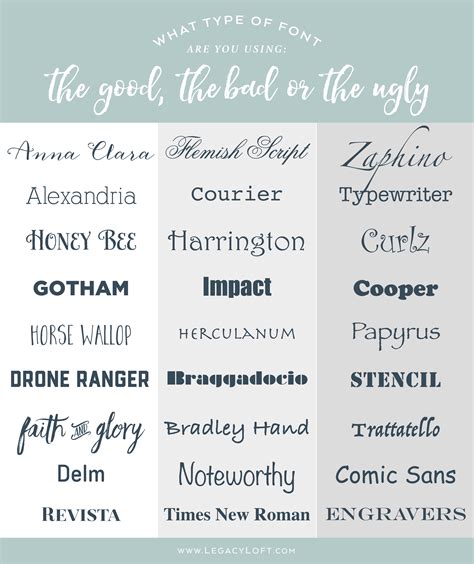
Ihuruf New Roman: The Ultimate Font Guide
Hey guys! Ever wondered about that sleek, classic font you see everywhere? Chances are, you’re thinking of something close to Ihuruf New Roman! This font, or fonts like it, have a certain timeless appeal that makes them super popular in everything from official documents to stylish designs. Let’s dive deep into what makes Ihuruf New Roman so special, where you might have seen it, and how you can use it to level up your own projects. We’ll also clear up some confusion, since “Ihuruf New Roman” isn’t exactly a font you can download. Buckle up, font fanatics!
What Exactly Is Ihuruf New Roman?
Okay, let’s get this straight. Ihuruf New Roman isn’t actually a font you’ll find in your font library. It sounds a lot like the super famous Times New Roman, and that’s likely what people are referring to. Times New Roman is a serif typeface – meaning it has those little feet or strokes at the end of the letters – and it’s one of the most widely used fonts in the world. You’ve definitely seen it in books, newspapers, and countless websites. So, when someone says “Ihuruf New Roman,” they probably mean Times New Roman or a very similar font. Times New Roman was commissioned by The Times newspaper in 1931 and designed by Stanley Morison and Victor Lardent. Its creation was a response to criticisms of the newspaper’s previous font, which was considered outdated and difficult to read. The goal was to create a typeface that was both legible and space-efficient, allowing for more text to fit on a page. This led to the development of Times New Roman, which quickly gained popularity and became a standard in the printing industry. Its clear and concise design made it ideal for long-form reading, and its versatility allowed it to be used in a wide range of publications. The font’s success can be attributed to its ability to balance functionality with aesthetic appeal, making it a timeless choice for both print and digital media. Over the years, Times New Roman has been adapted and modified for various platforms, ensuring its continued relevance in the ever-evolving world of typography. Whether you’re reading a novel, browsing a website, or working on a document, chances are you’ve encountered Times New Roman and appreciated its understated elegance and readability. Its legacy as a foundational typeface is undeniable, and its influence can be seen in countless other fonts that have been developed since its creation. So, while Ihuruf New Roman may not be a specific font you can download, understanding its connection to Times New Roman provides valuable insight into the world of typography and the importance of choosing the right font for your needs.
There are tons of reasons why this font, or its close cousin, is such a big deal. First off, it’s super readable. The clear, defined shapes of the letters make it easy on the eyes, especially for long blocks of text. This is why you see it in so many books and articles. Secondly, it’s versatile. Times New Roman works well in both print and digital formats. It’s not too fancy or distracting, making it a solid choice for professional documents, academic papers, and even websites. Plus, it comes pre-installed on most computers, so it’s readily available for just about everyone. But readability isn’t the only factor contributing to Times New Roman’s enduring popularity; its historical significance and association with authority also play a role. As the font of choice for The Times newspaper, it carries a certain weight of credibility and trustworthiness. This makes it a popular choice for legal documents, government publications, and other materials where a sense of formality and professionalism is desired. Furthermore, Times New Roman’s widespread adoption in the early days of desktop publishing helped solidify its status as a standard typeface. Its compatibility with various software programs and printers made it a convenient option for designers and publishers alike. Over time, its familiarity became an asset, as readers grew accustomed to its appearance and found it easy to process. While some designers may view Times New Roman as somewhat generic or uninspired, its ubiquity is precisely what makes it so effective in many contexts. It doesn’t draw attention to itself, allowing the content to take center stage. In a world where visual clutter is rampant, this understated quality can be a refreshing change. So, whether you love it or hate it, there’s no denying the impact of Times New Roman on the world of typography. Its readability, versatility, historical significance, and widespread availability have all contributed to its enduring popularity. And while Ihuruf New Roman may not be a font you can download, understanding its connection to Times New Roman provides valuable insight into the reasons behind this font’s continued relevance.
Where Have You Seen Ihuruf New Roman (Probably Times New Roman)?
Seriously, this font is everywhere! Think about it. You’ve probably seen it in:
• Books: Especially novels and non-fiction books.
• Newspapers and Magazines: It was originally designed for The Times newspaper, after all.
• Legal Documents: Many legal forms and court documents use Times New Roman for its professional look.
• Academic Papers: Students often use it for essays and research papers.
• Websites: While not as common as sans-serif fonts for body text on websites, you’ll still find it in some corners of the internet.
It’s the go-to font for anything that needs to look clear, professional, and easy to read. The prevalence of Times New Roman extends beyond these common examples, permeating various aspects of our daily lives. For instance, many government agencies and institutions use Times New Roman in their official communications, from letters and memos to reports and publications. Its association with authority and credibility makes it a natural choice for these organizations. In the business world, Times New Roman is often used in corporate reports, presentations, and other internal documents. While some companies may opt for more modern or stylized fonts in their marketing materials, Times New Roman remains a reliable option for formal communications. Even in the realm of education, Times New Roman plays a significant role. Many universities and colleges require students to use Times New Roman in their essays and research papers, reinforcing its status as a standard academic typeface. Furthermore, Times New Roman is often used in standardized tests and assessments, ensuring consistency and readability across a wide range of documents. Its simplicity and clarity make it an ideal choice for these high-stakes situations. So, whether you’re aware of it or not, Times New Roman is likely present in many of the documents and materials you encounter on a daily basis. Its ubiquity is a testament to its enduring appeal and its ability to meet the needs of a diverse range of users. And while Ihuruf New Roman may not be a font you can download, understanding its connection to Times New Roman provides valuable insight into the pervasiveness of this iconic typeface.
How to Use Ihuruf New Roman (or Something Like It) in Your Own Projects
So, you’re digging the Ihuruf New Roman vibe and want to use it in your own work? Awesome! Here’s how to make the most of it:
• For Long Documents: If you’re writing a report, a book, or a long article, Times New Roman (or a similar serif font) is a great choice for the body text. It’s easy on the eyes and won’t tire out your readers.
• For a Professional Look: Need to create a resume, a cover letter, or a business proposal? Times New Roman can give your document a polished and professional feel. Just be sure to pair it with a modern font for headings to avoid looking too outdated.
• For Print Materials: Times New Roman is a solid choice for printed materials like brochures, flyers, and posters. Its clear letterforms will ensure that your message is easy to read, even at smaller sizes.
• Pairing with Other Fonts: Times New Roman pairs well with many sans-serif fonts, like Arial, Helvetica, or Open Sans. Use Times New Roman for the body text and a sans-serif font for the headings to create a visually appealing and balanced design.
Experiment with different font sizes, line heights, and letter spacing to find the perfect combination for your project. Remember, the goal is to create a design that is both visually appealing and easy to read. When using Times New Roman in your own projects, it’s essential to consider the overall context and the message you’re trying to convey. While Times New Roman is a versatile font, it’s not always the best choice for every situation. For instance, if you’re creating a website with a modern and cutting-edge design, Times New Roman might feel out of place. In such cases, a more contemporary sans-serif font might be a better option. Similarly, if you’re designing a logo or branding materials, you’ll want to choose a font that reflects your brand’s personality and values. Times New Roman can be a good choice for brands that want to project a sense of tradition, authority, and reliability. However, if your brand is more playful or innovative, you’ll want to explore other options. Ultimately, the key to using Times New Roman effectively is to understand its strengths and limitations and to choose it wisely based on the specific needs of your project. And while Ihuruf New Roman may not be a font you can download, understanding its connection to Times New Roman provides valuable insight into the principles of typography and the importance of choosing the right font for your design.
Clearing Up the Confusion: Ihuruf New Roman vs. Times New Roman
Okay, let’s address the elephant in the room. Ihuruf New Roman isn’t a font you’re going to find in your font menu. It’s almost certainly a misremembering or a reference to the ever-popular Times New Roman. They sound alike, and Times New Roman is so ubiquitous that it’s easy to see how the names might get mixed up. So, if you’re looking for Ihuruf New Roman , just search for Times New Roman , and you’ll be good to go! The confusion between Ihuruf New Roman and Times New Roman highlights the importance of accurate font identification and nomenclature. In the world of typography, subtle differences in font names and styles can have a significant impact on the overall design and readability of a document. Therefore, it’s crucial to be precise when specifying fonts and to avoid using ambiguous or inaccurate terms. Furthermore, the confusion underscores the dominance of Times New Roman in the world of typography. Its widespread use and recognition have made it a household name, often overshadowing other similar serif fonts. While Times New Roman is undoubtedly a valuable and versatile typeface, it’s essential to be aware of the many other font options available and to choose the one that best suits your specific needs and preferences. Exploring different font styles and experimenting with various combinations can help you create unique and visually appealing designs that stand out from the crowd. And while Ihuruf New Roman may not be a font you can download, understanding its connection to Times New Roman provides valuable insight into the complexities of font identification and the importance of choosing the right typeface for your project. By being mindful of these factors, you can ensure that your designs are both visually effective and professionally polished.
Conclusion: Embrace the Timeless Appeal of “Ihuruf New Roman” (Times New Roman)
So there you have it! While Ihuruf New Roman might be a bit of a typographical mystery, its close relative, Times New Roman, is a font you can rely on for its readability, versatility, and professional appeal. Whether you’re writing a novel, designing a brochure, or creating a presentation, Times New Roman is a solid choice that will help you communicate your message clearly and effectively. Embrace its timeless appeal and use it to elevate your projects! And remember, even if you can’t find Ihuruf New Roman in your font library, you can always count on Times New Roman to get the job done. Its enduring popularity and widespread availability make it a valuable asset for designers, writers, and anyone who wants to create visually appealing and easy-to-read documents. So, go ahead and experiment with Times New Roman in your own projects and discover its versatility and timeless charm. You might be surprised at how much it can enhance the overall look and feel of your designs. And while Ihuruf New Roman may not be a font you can download, understanding its connection to Times New Roman provides valuable insight into the world of typography and the importance of choosing the right font for your creative endeavors. By embracing the timeless appeal of Times New Roman, you can create designs that are both visually effective and professionally polished, leaving a lasting impression on your audience.